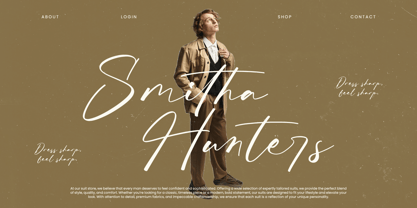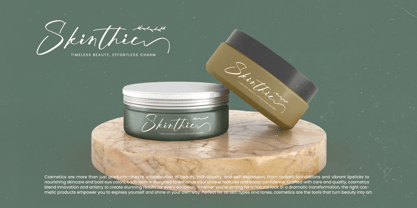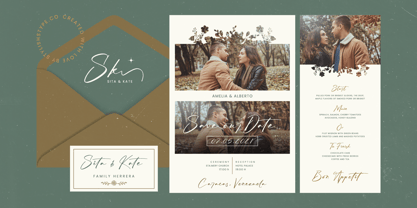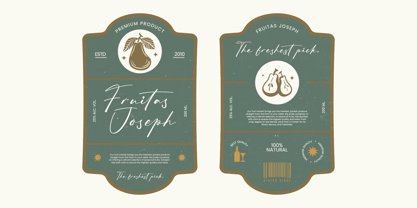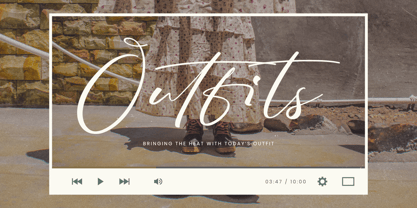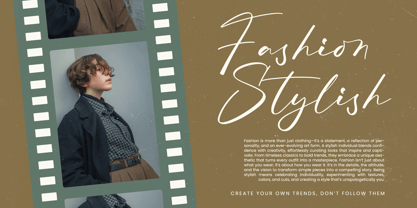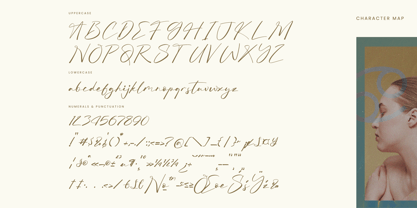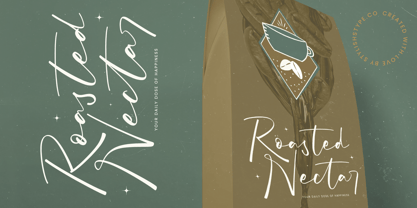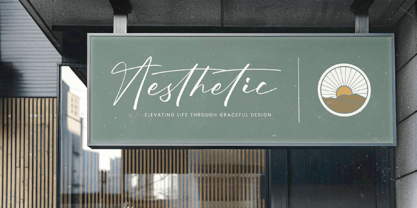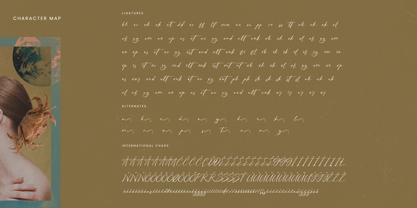
Patchwork Authentic
by Stylishtype Studio
The Patchwork Authentic Font Family was designed by Heru Utama Putra and published by Stylishtype Studio. Patchwork Authentic contains 2 styles and family package options. More about this family
Patchwork Authentic - Stylish Handwritten Font , from Stylishtype, Suitable for any projects such as: logos, branding projects, homeware designs, product packaging, mugs, quotes, posters, shopping bags, t-shirts, book covers, name card, invitation cards, greeting cards, label, photography, watermark, special events, and all your other luxury and beautiful projects that need a Luxury Script taste.
Patchwork Authentic